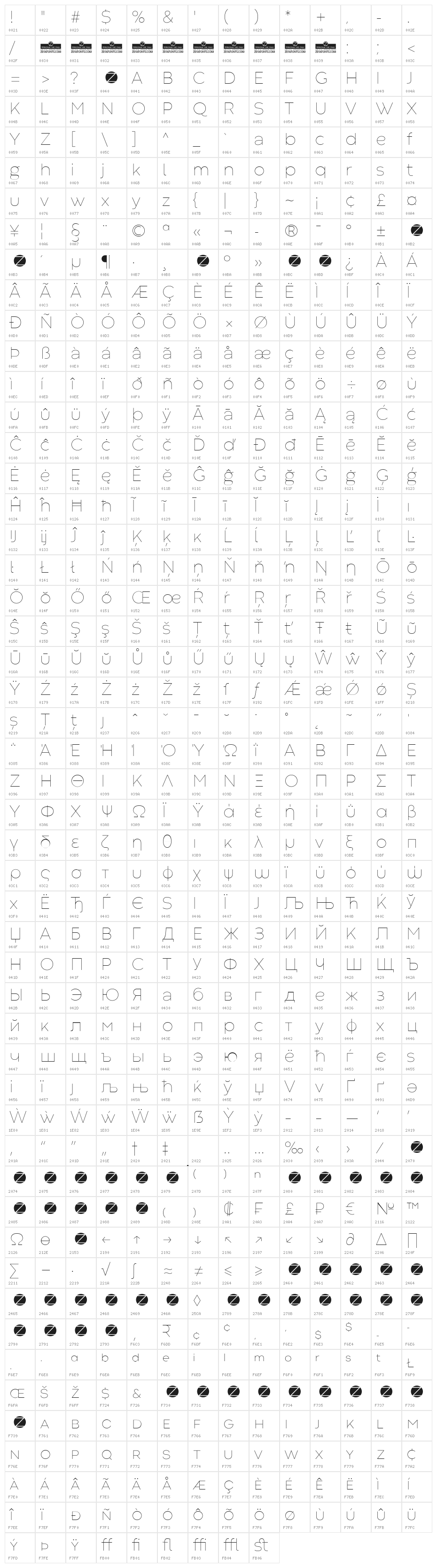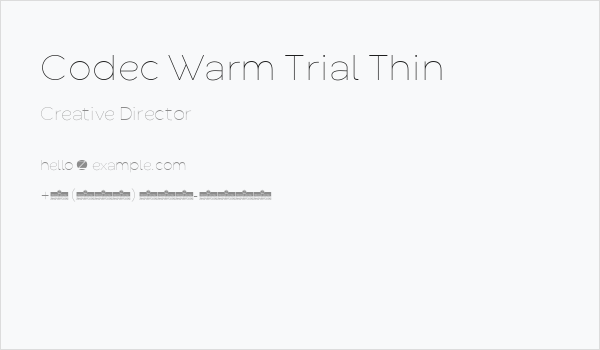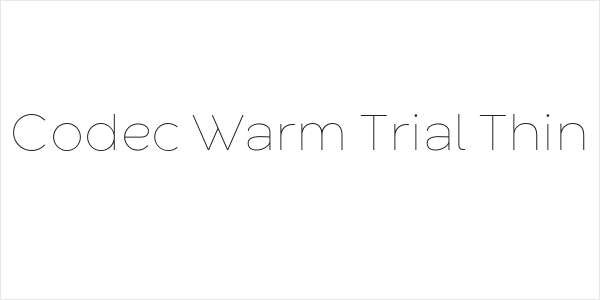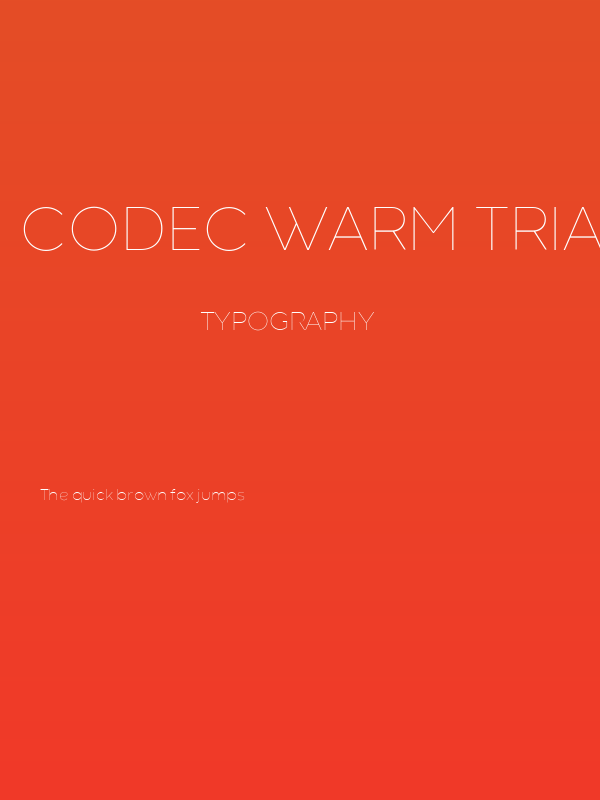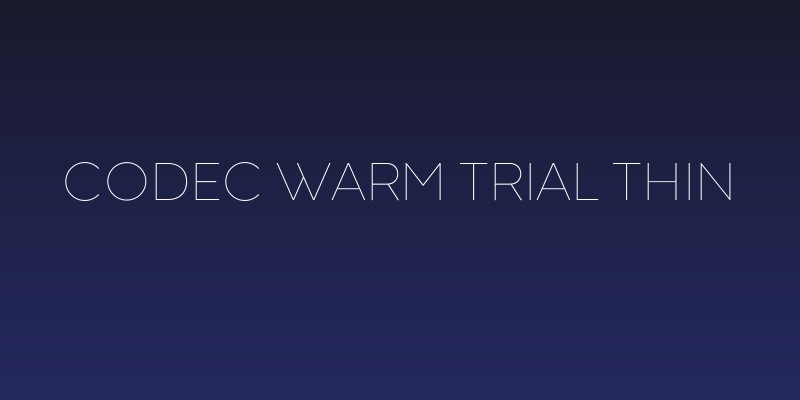
Codec Warm Trial Thin Font
Codec Warm Trial Thin Description
This font features a clean and minimalistic design with thin, uniform strokes that create a sense of elegance and modernity. The characters are well-proportioned, with a geometric influence that is evident in the consistent line thickness and precise curves. The uppercase and lowercase letters maintain a harmonious balance, while the numerals and special characters complement the overall aesthetic. Its simplicity and clarity make it versatile for various design applications.
| Proposed Projects | Ideal for branding, editorial design, websites, and minimalist graphic design projects. |